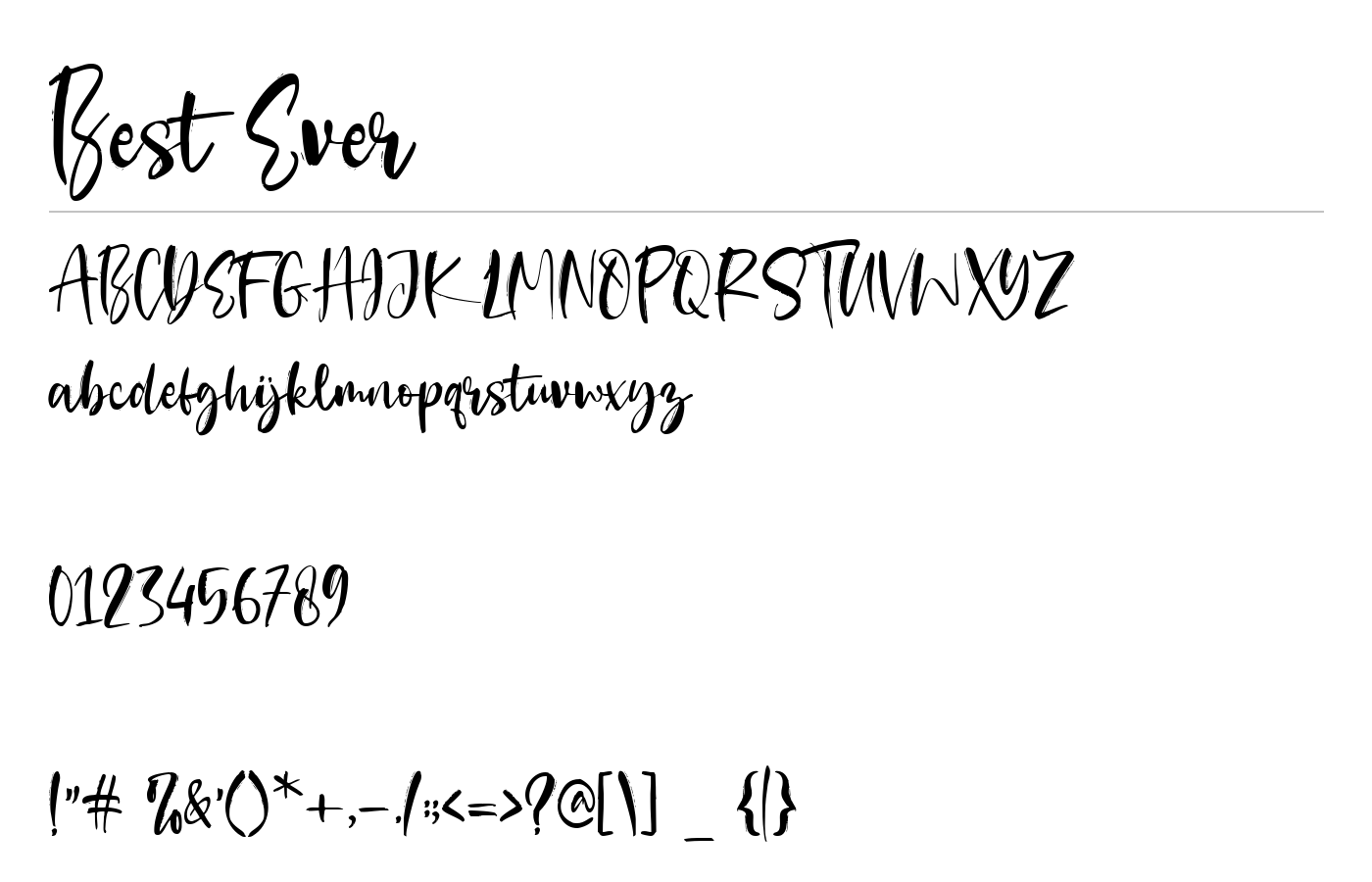
Best Ever Font is a lively, handwritten script with a casual, artistic flair. Its slightly irregular, brush-like strokes and varying line thicknesses create an expressive, personal feel, making it ideal for creative branding, invitations, and playful designs that want to convey warmth and individuality. This font works well in headlines or logos where a natural, stylish touch is desired.
Best Ever Font
About Best Ever Font
| Font family | Best Ever Font |
| Designer | NH & AFS Olivetype |